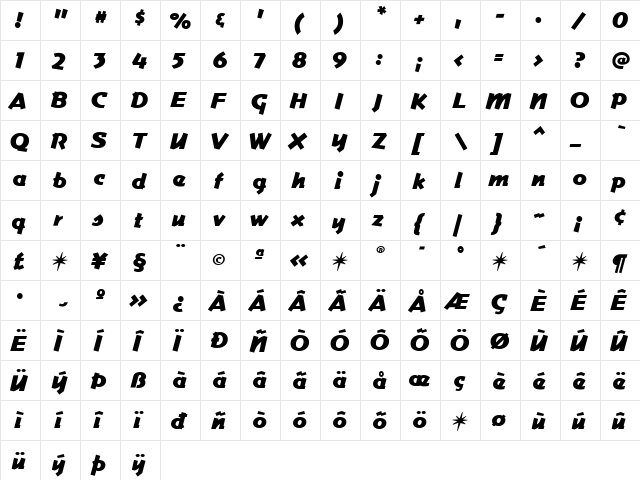
Commerce Regular
Design Context for Commerce Typeface
Commerce offers clean, dependable letterforms without strong stylistic allegiance, making it a practical choice for designers who need flexibility.